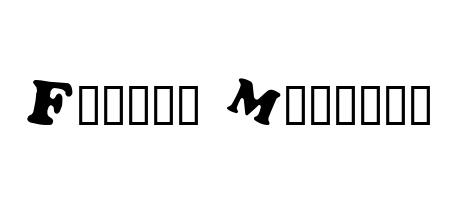
Fridge Magnets
Fridge Magnets is a playful, hand-drawn style font. Bold, uppercase letters, like "F" and "M," are juxtaposed with simple, rectangular shapes representing refrigerator magnets. This creates a whimsical, childlike aesthetic, suggesting a fun, slightly quirky personality. The contrast in letter styles adds visual interest.